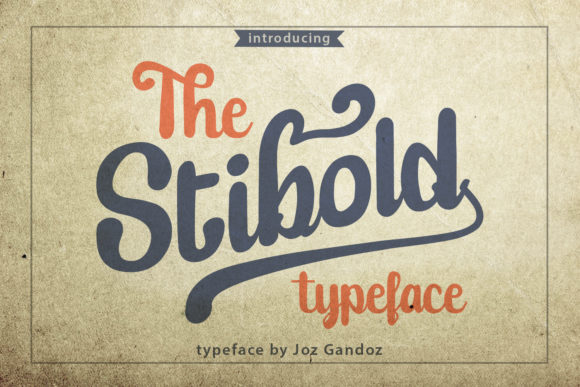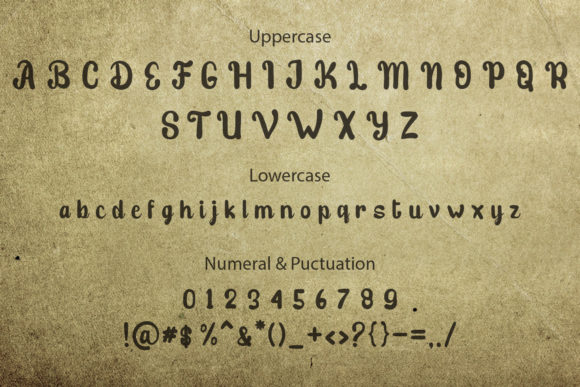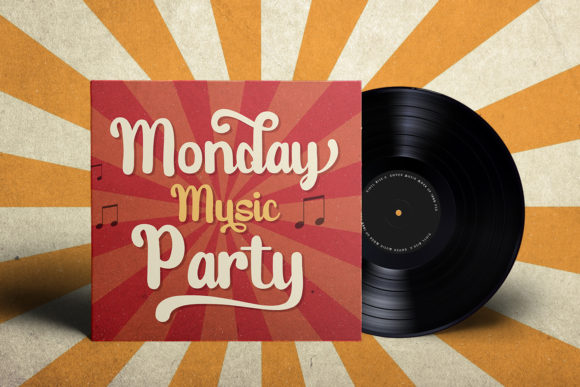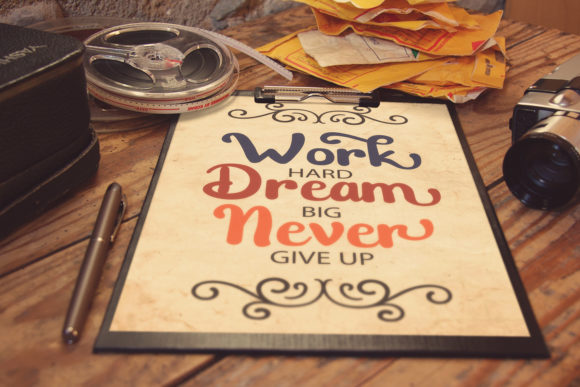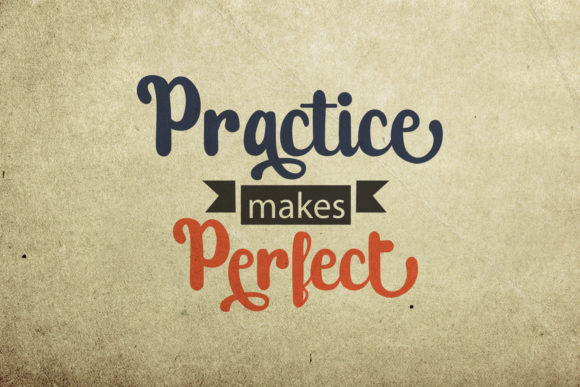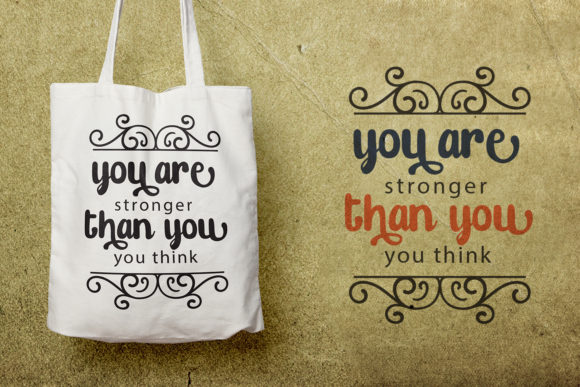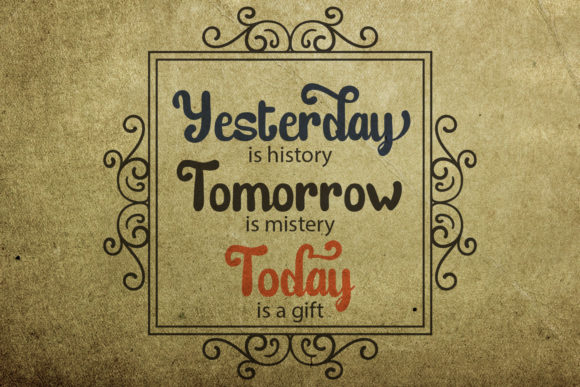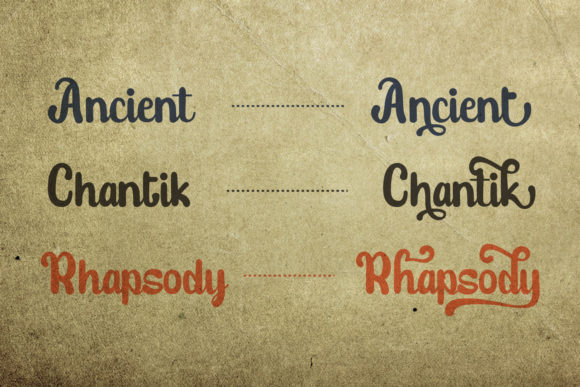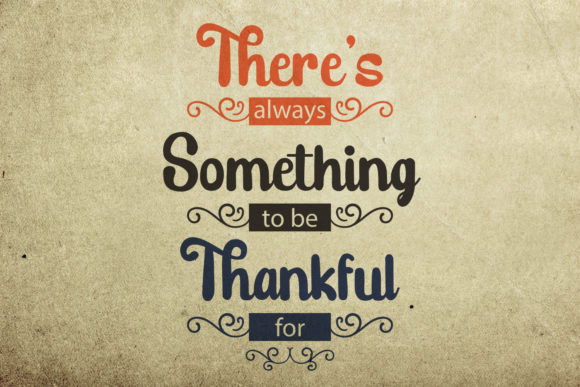
Stibold Font
About Stibold Font
The Stibold will give your designs an authentic handcrafted feel. It has an unique style which is perfect for logos, branding, typography quotes, magazine or book covers, website headers, clothing, branding, and much more!